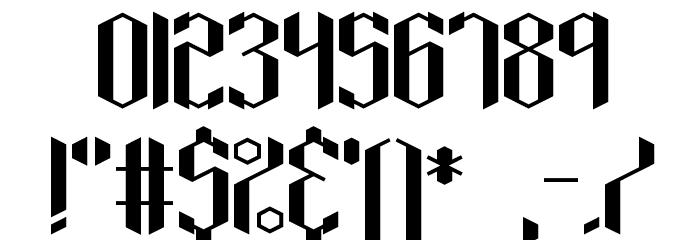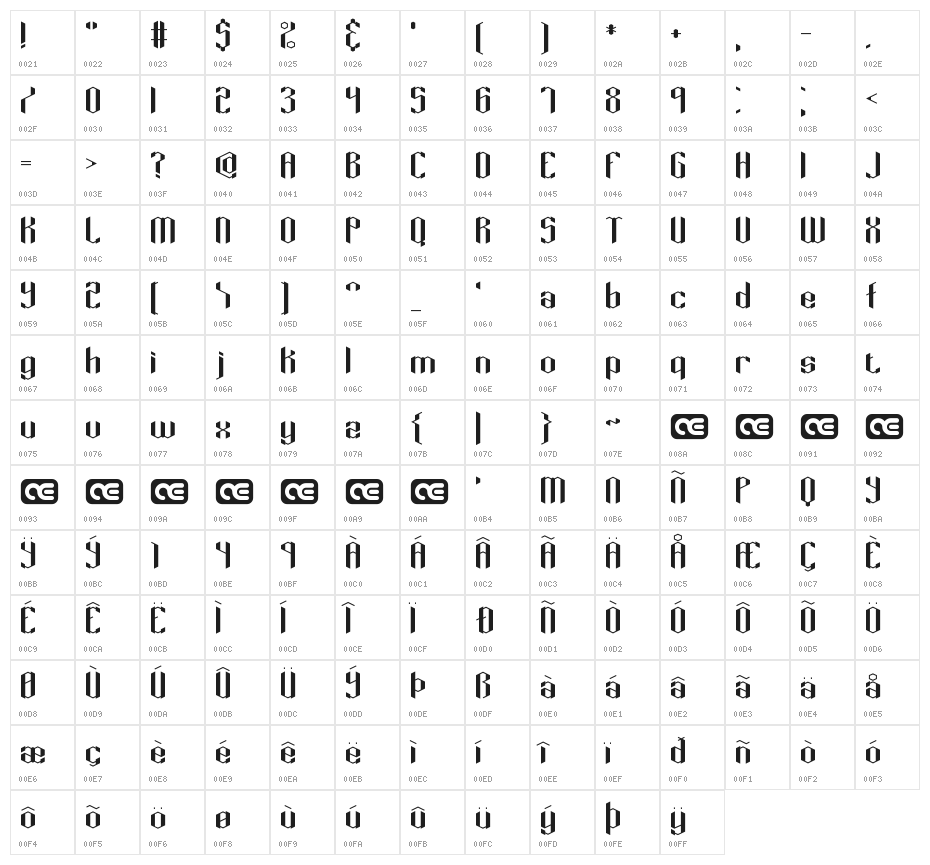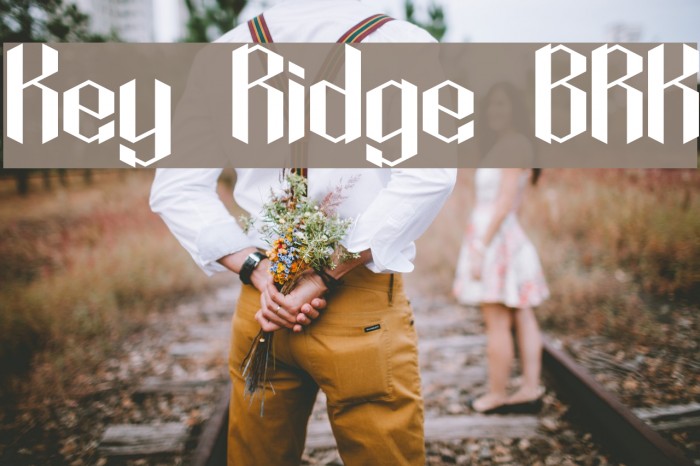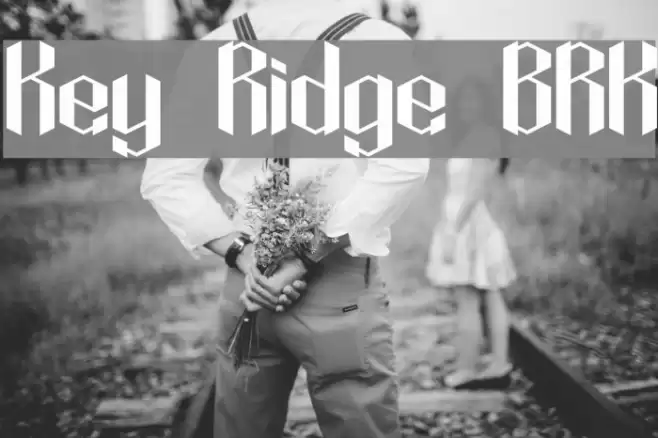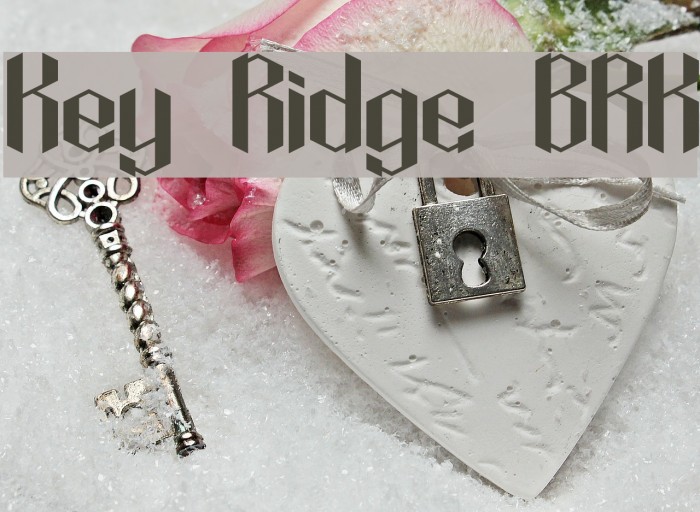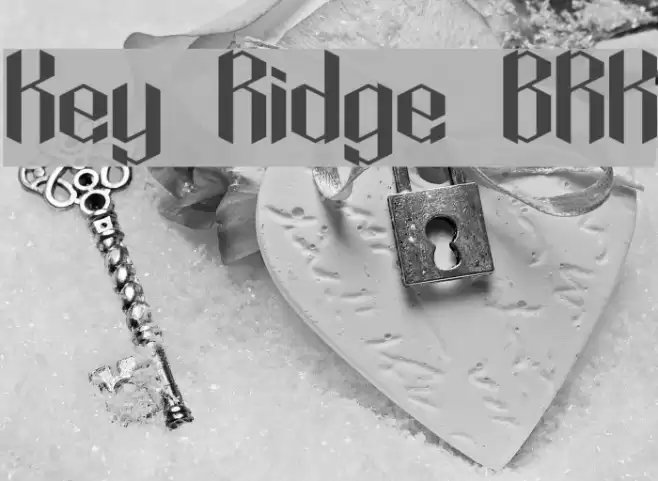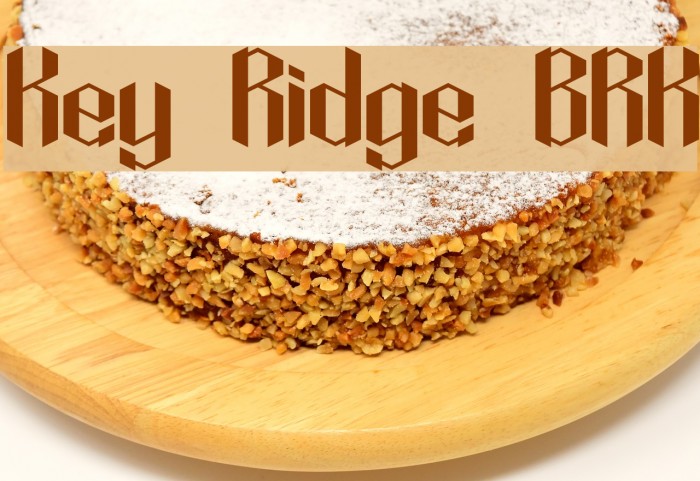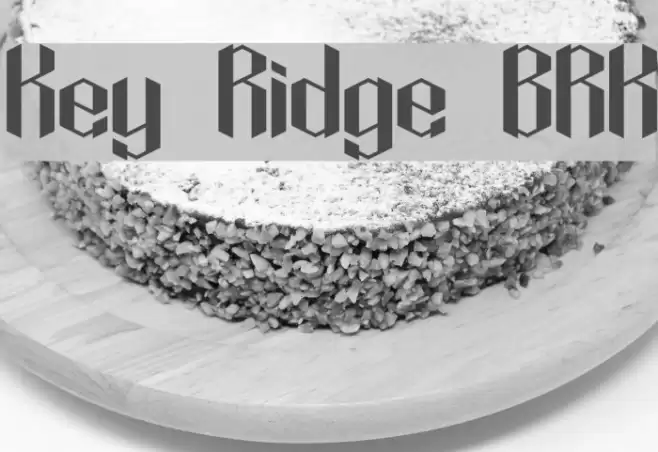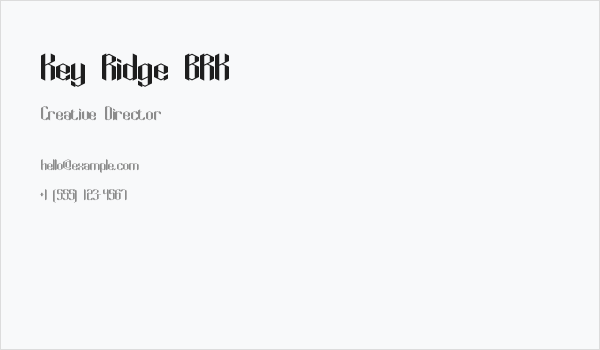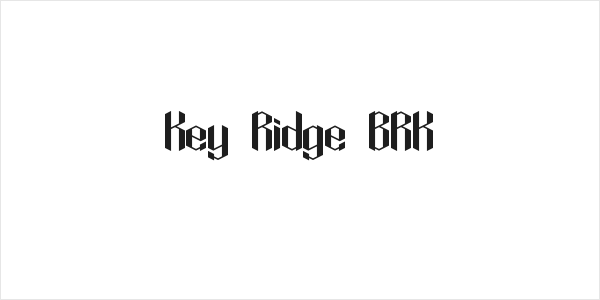
Key Ridge BRK Font
Key Ridge BRK Description
This font features a bold and angular design with a distinct geometric style. The characters are constructed with sharp, pointed edges and a consistent stroke width, giving it a modern and edgy appearance. The uppercase and lowercase letters maintain a uniform height, contributing to a cohesive look. The numerals and special characters follow the same angular theme, ensuring visual consistency across all elements. This font's unique style makes it stand out, ideal for projects that require a strong visual impact.